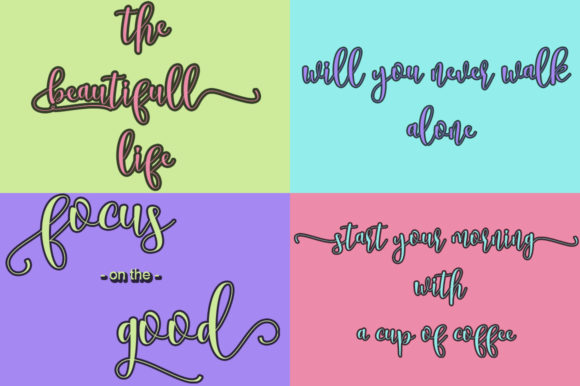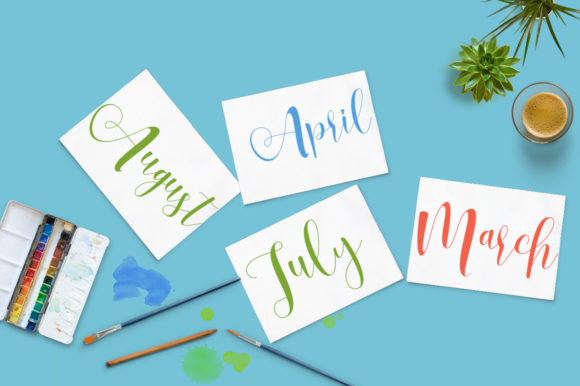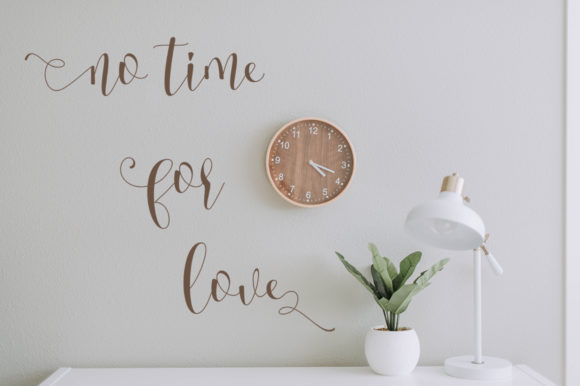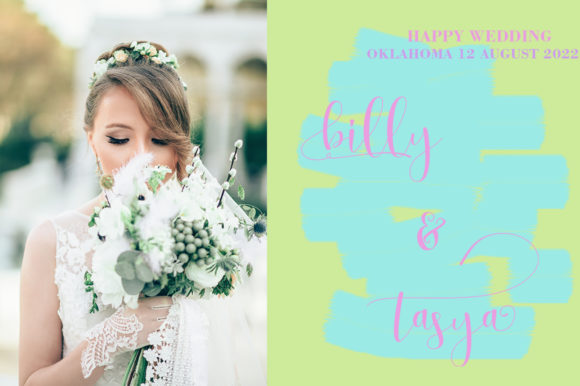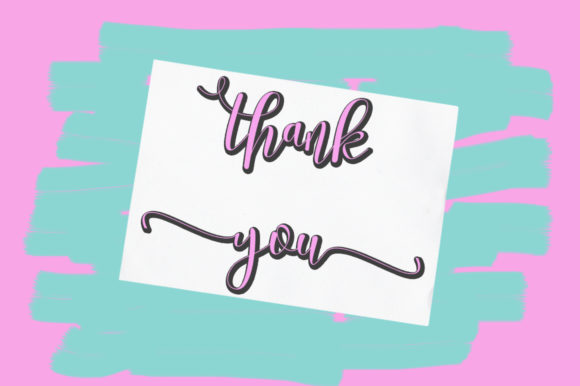
Mellow Font
About Mellow Font
The Mellow is a modern calligraphy script. Its swashes give it an elegant feel which makes it perfect for luxurious designs.